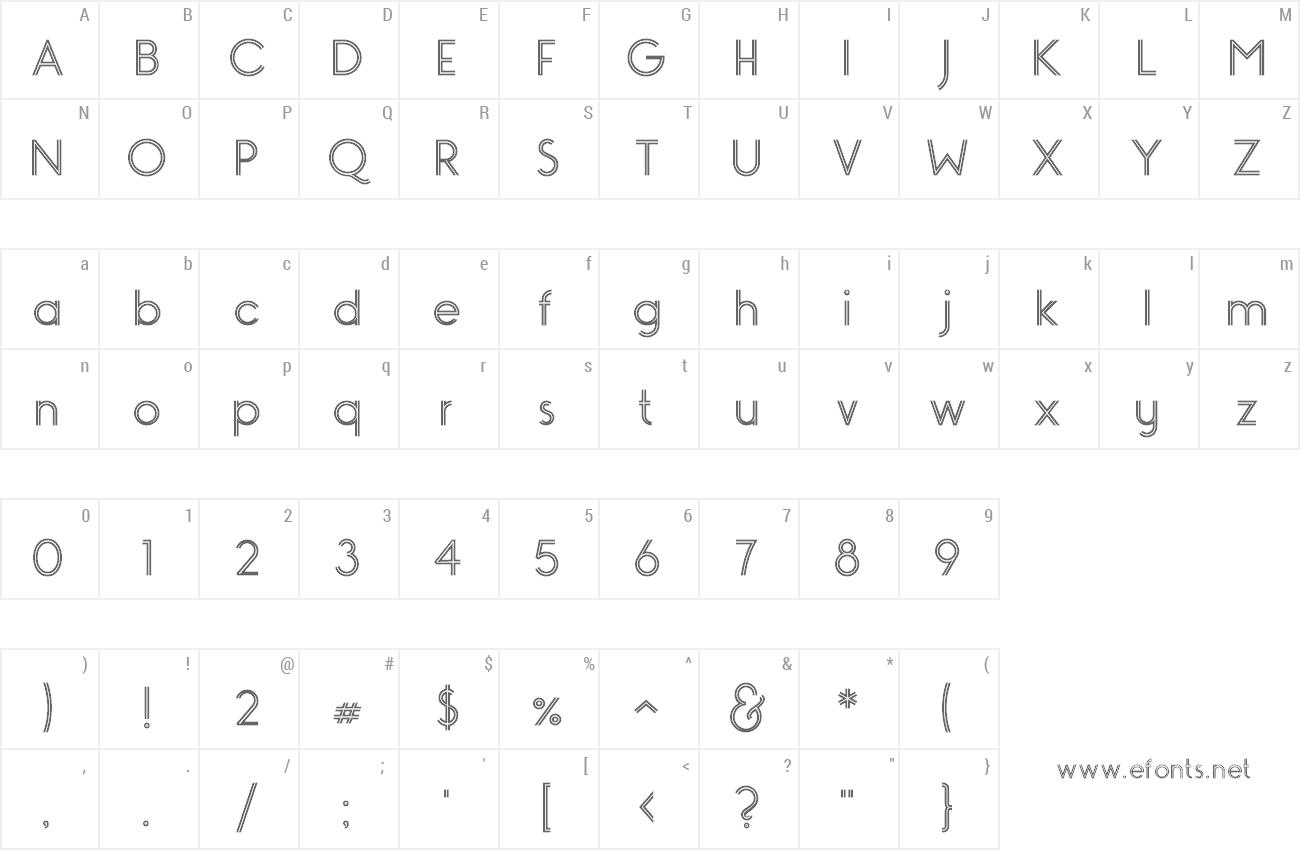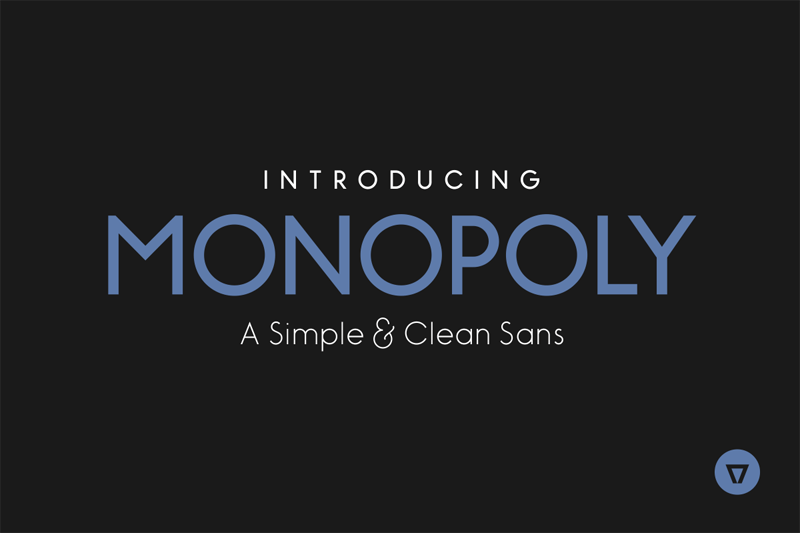
Preview and download Monopoly Inline Font. Created by NimaVisual in Basic Various styles with Free for personal use license.
Monopoly is a modern, simple and clean monolinear sans-serif. It has a complete western character set and comes in 3 styles: Light, Bold and Bold Inline giving it the versatility and unique look needed for your design project. Monopoly 3 Styles commercial license: https://sellfy.com/p/0TfP/ or https://crmrkt.com/R5RXdm |